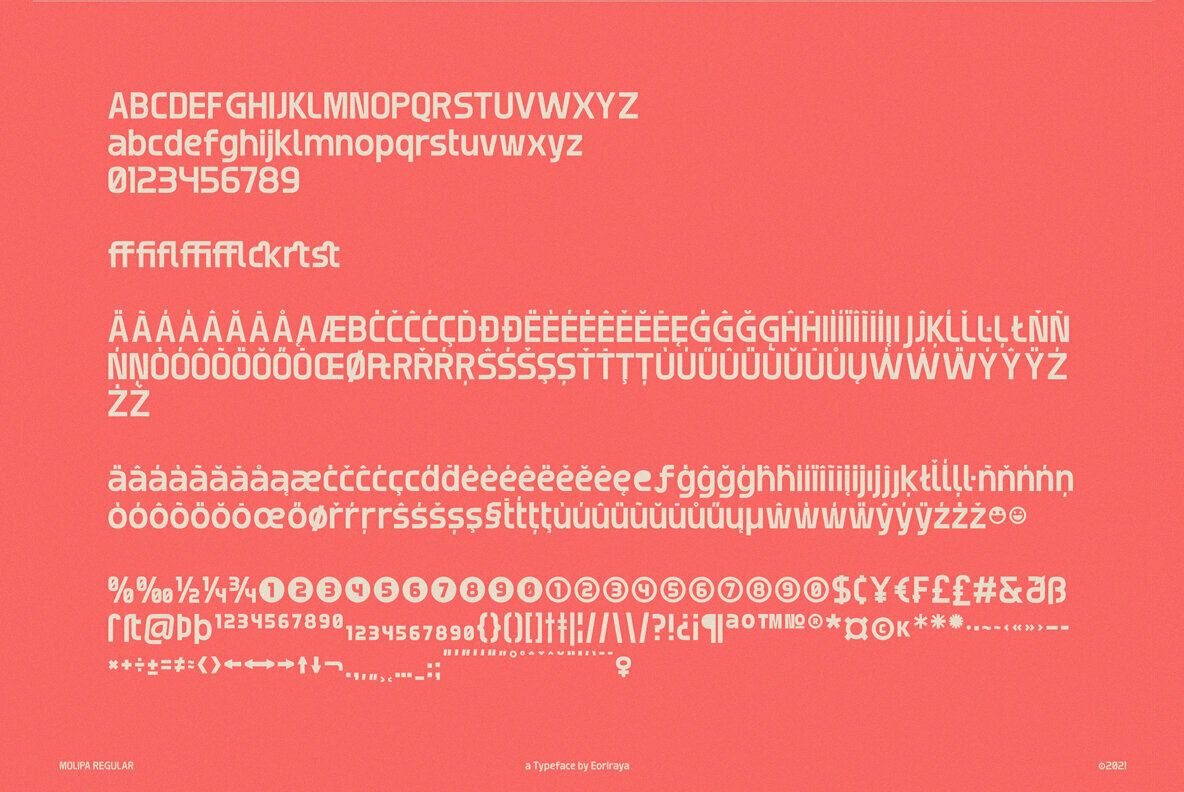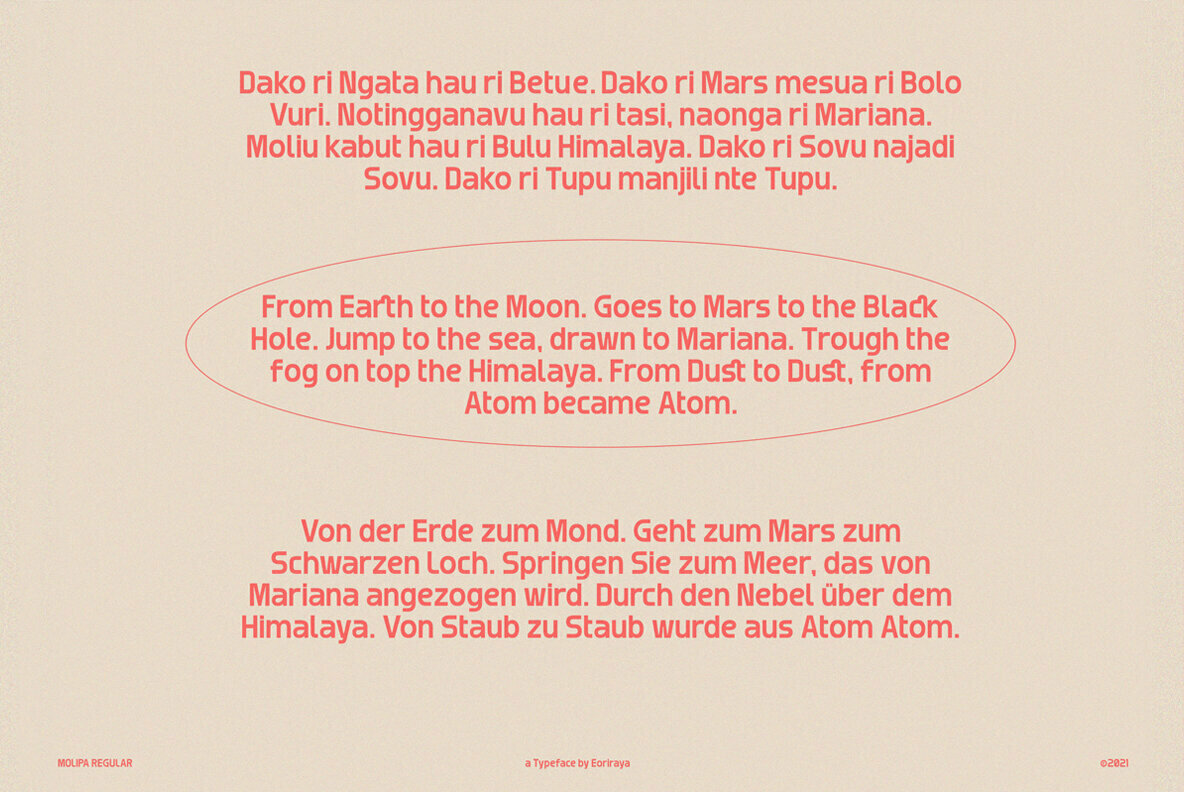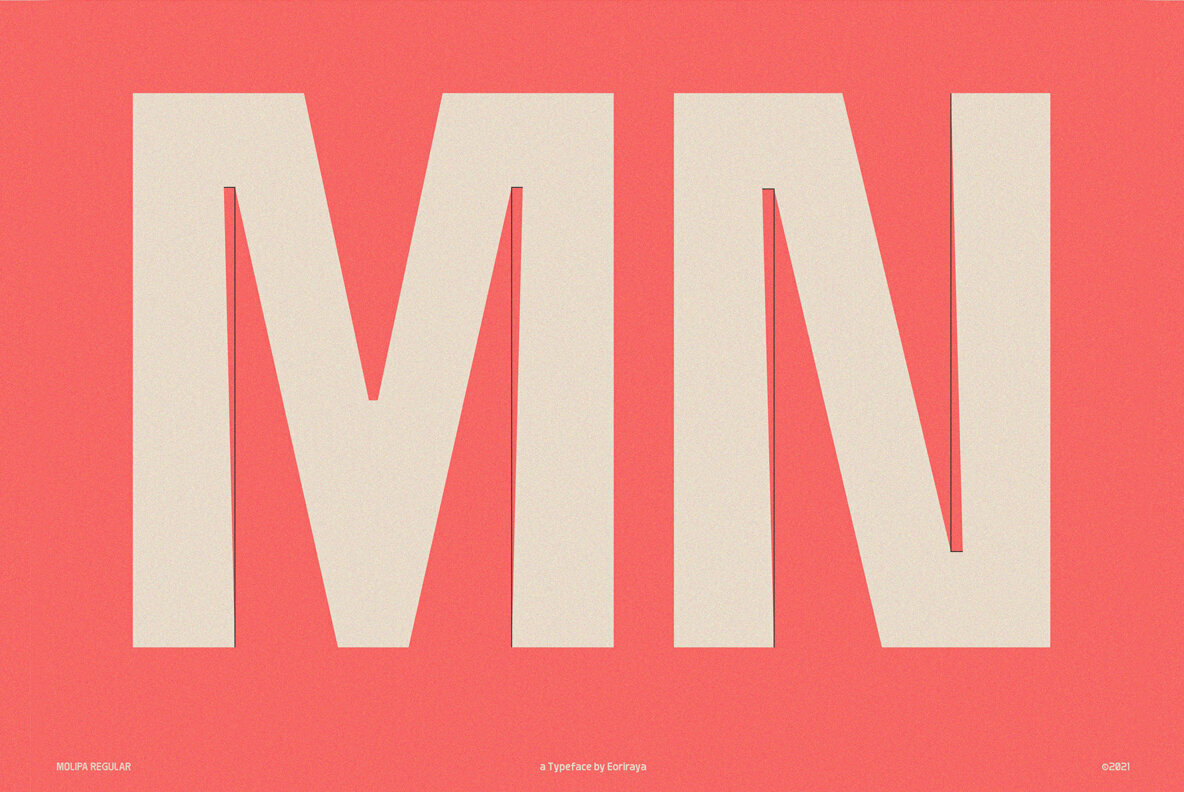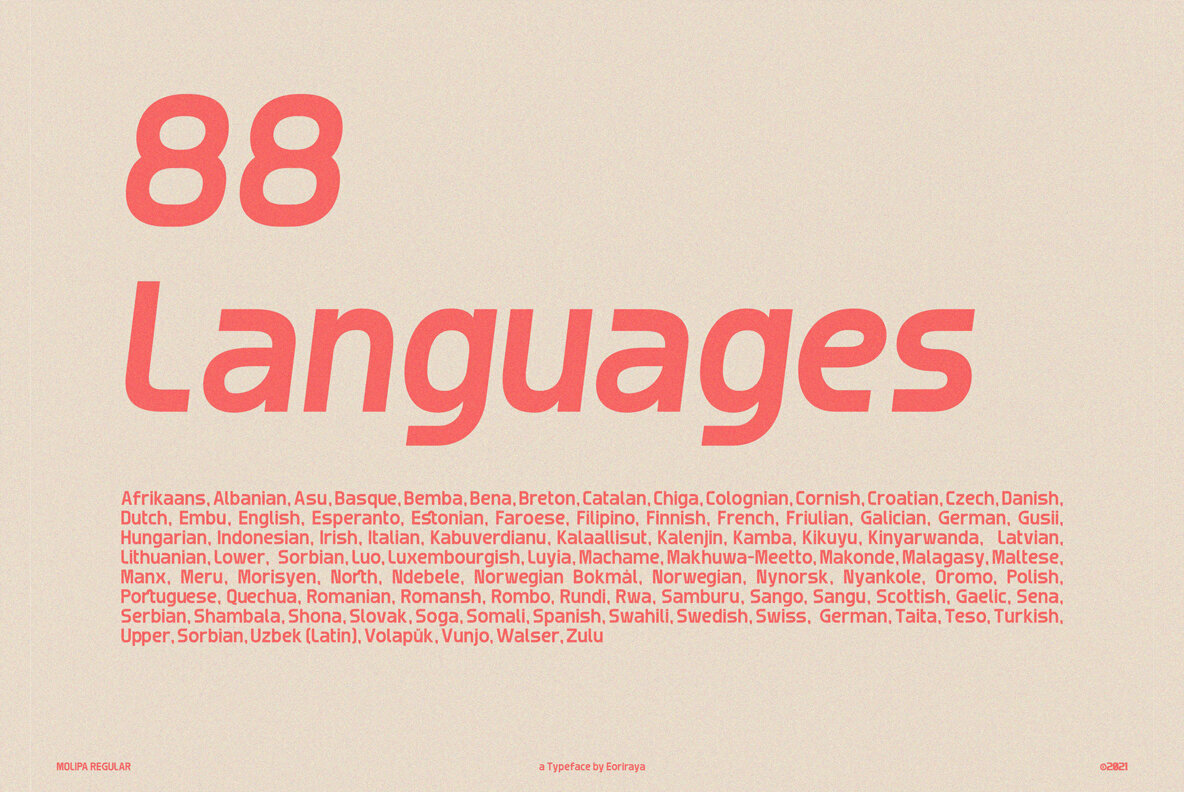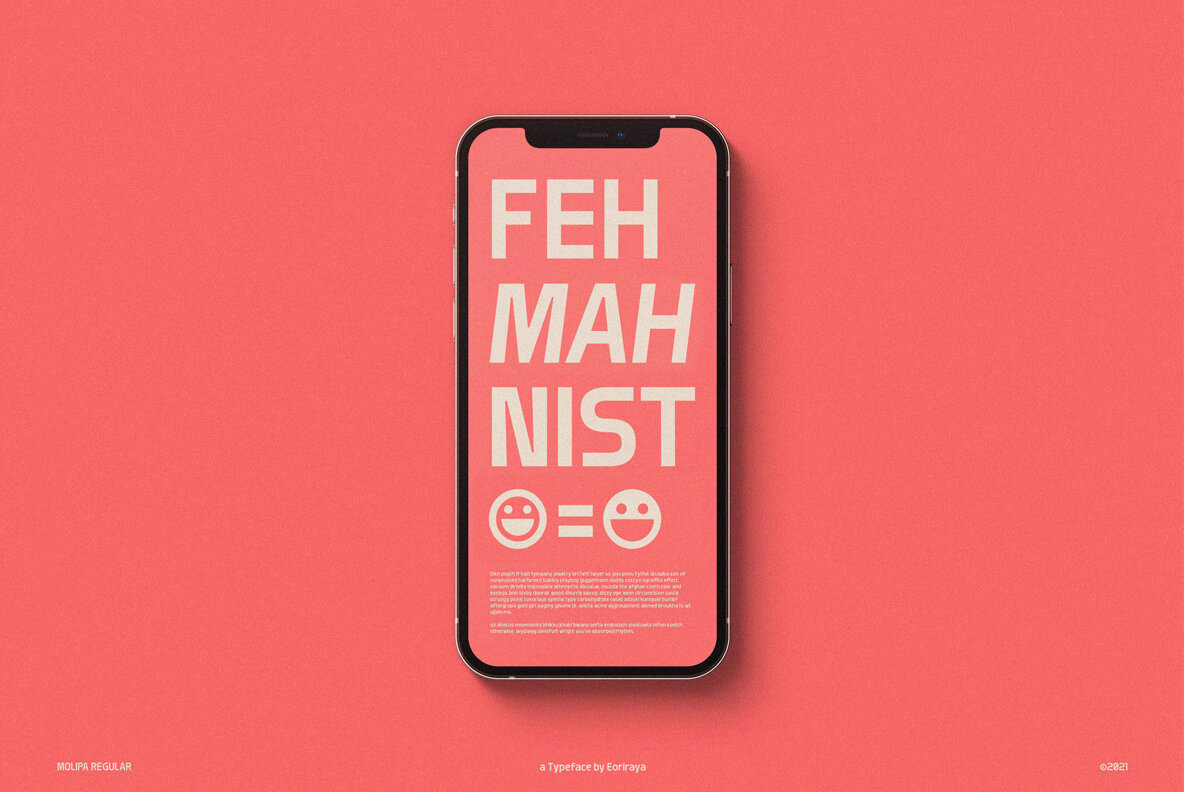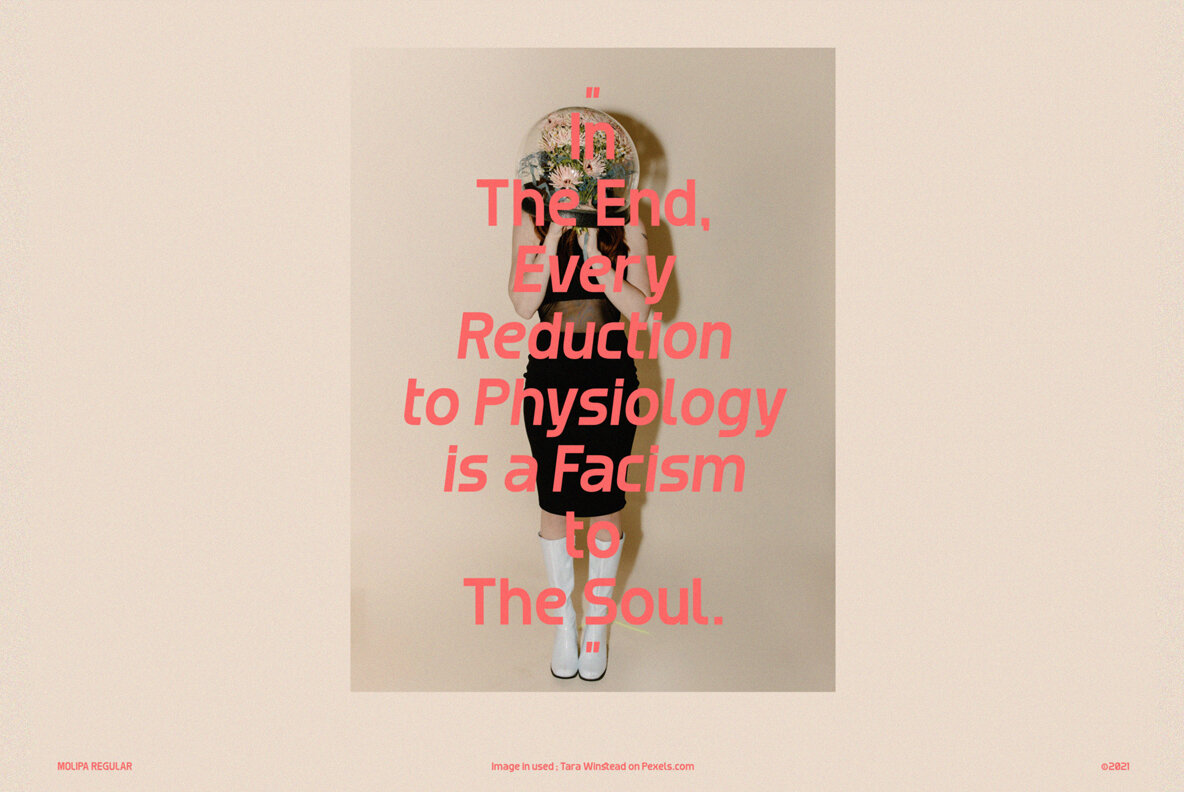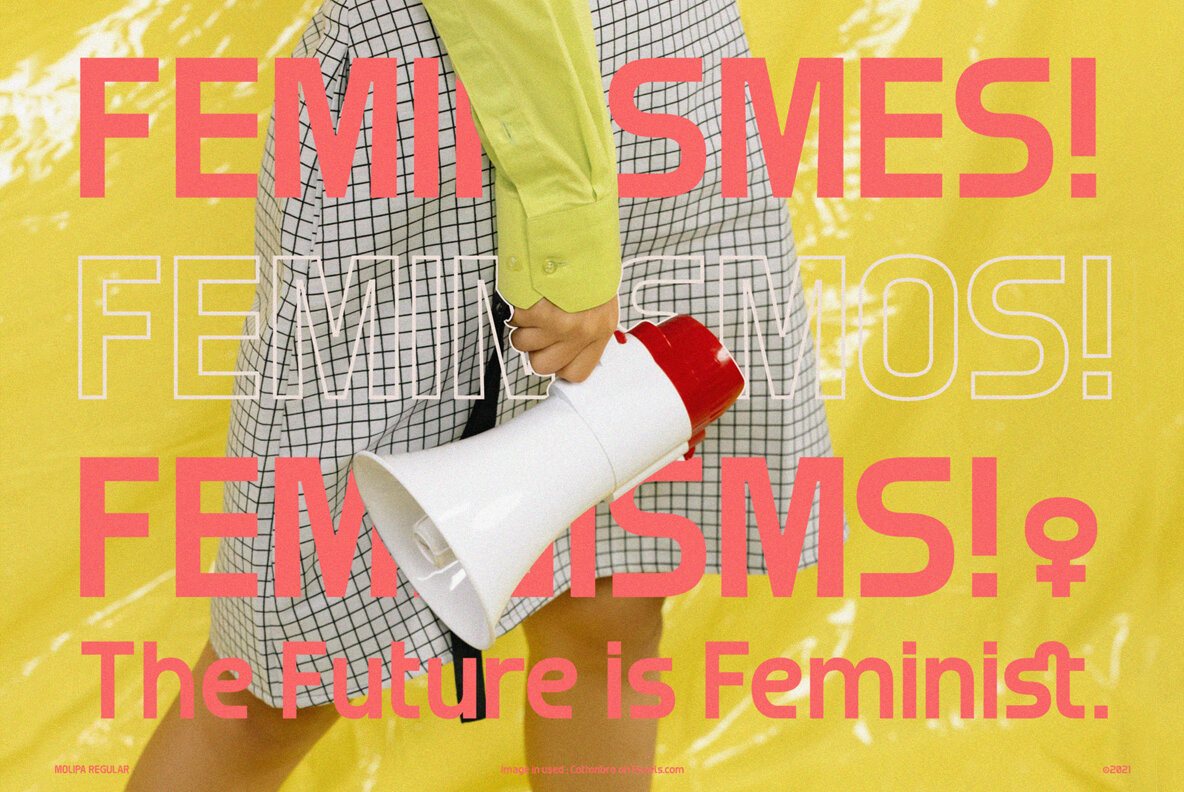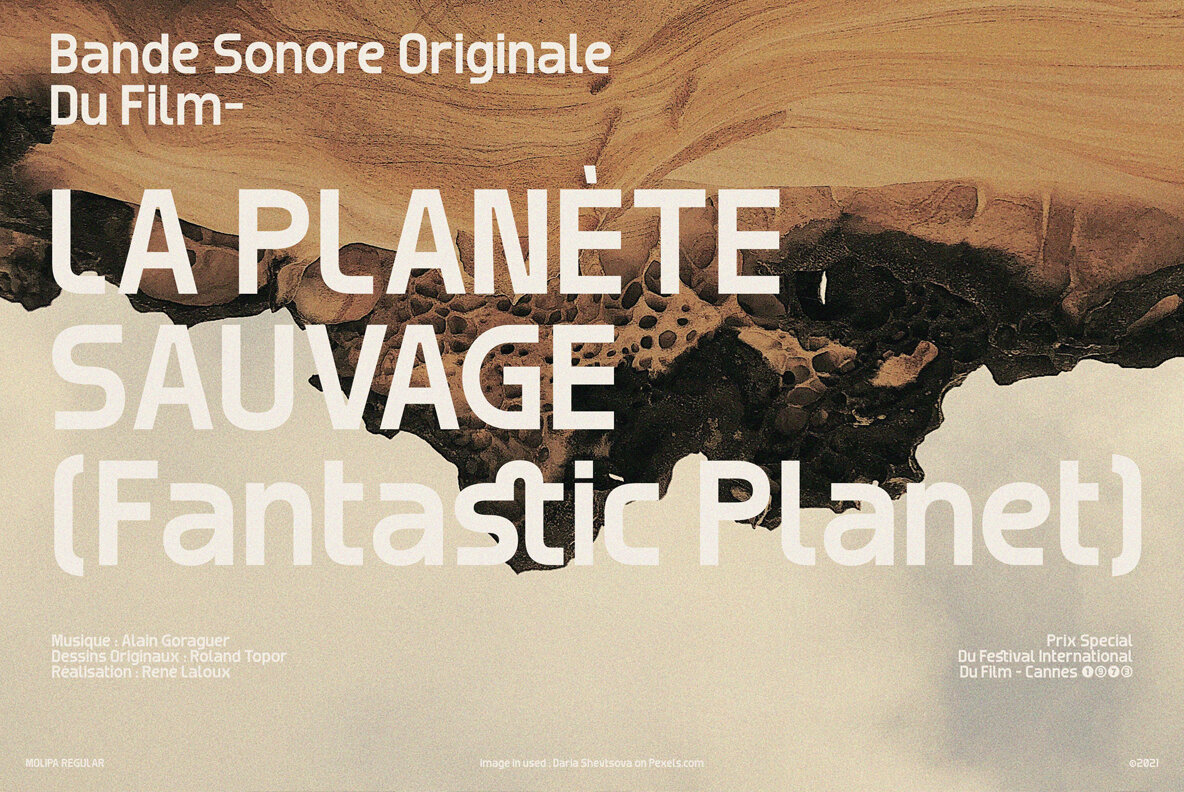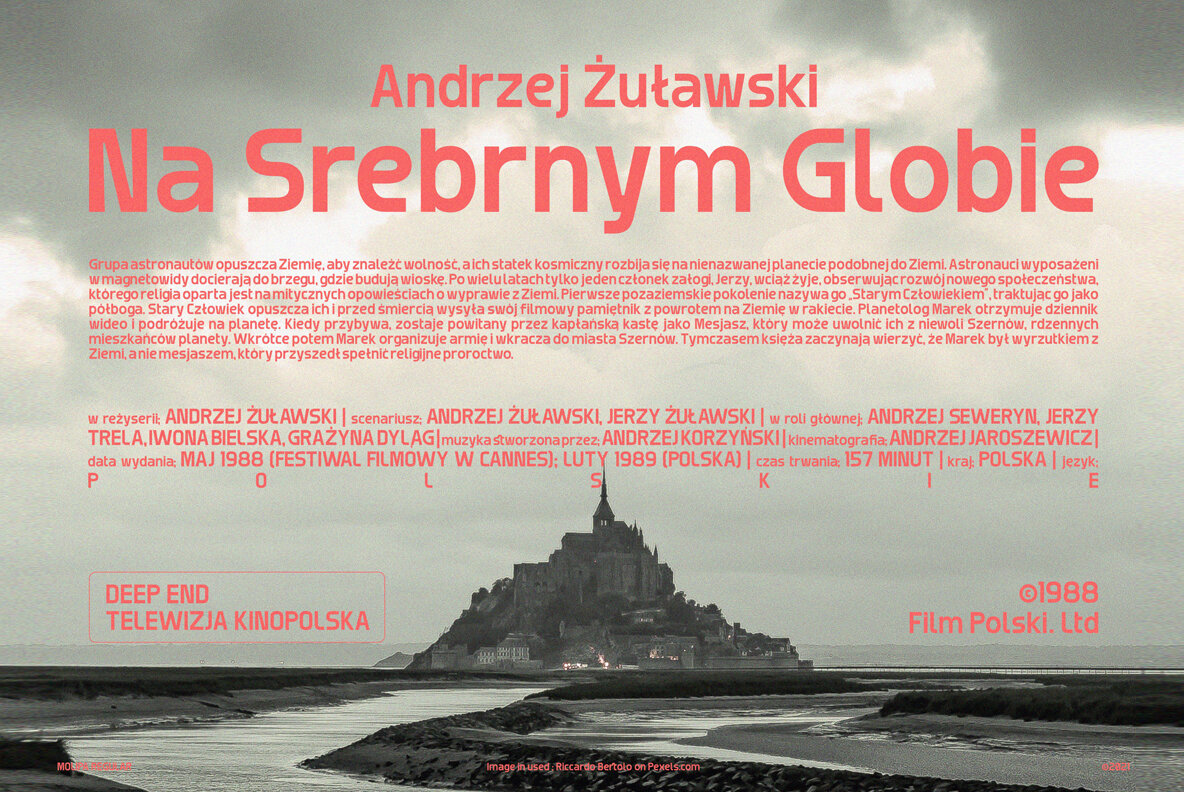
Molipa Sans Font
Molipa Sans draws inspiration from the captivating sci-fi films of the 70s and 80s, offering a unique blend of retro futurism. This distinctive typeface not only embraces an era of cinematic imagination but also aligns seamlessly with current fashion themes. An ideal choice for creative projects, Molipa Sans brings a nostalgic yet modern aesthetic to your design work, making it perfect for a wide range of applications.Molipa Sans: Retro Futurism with a Sci-Fi Edge